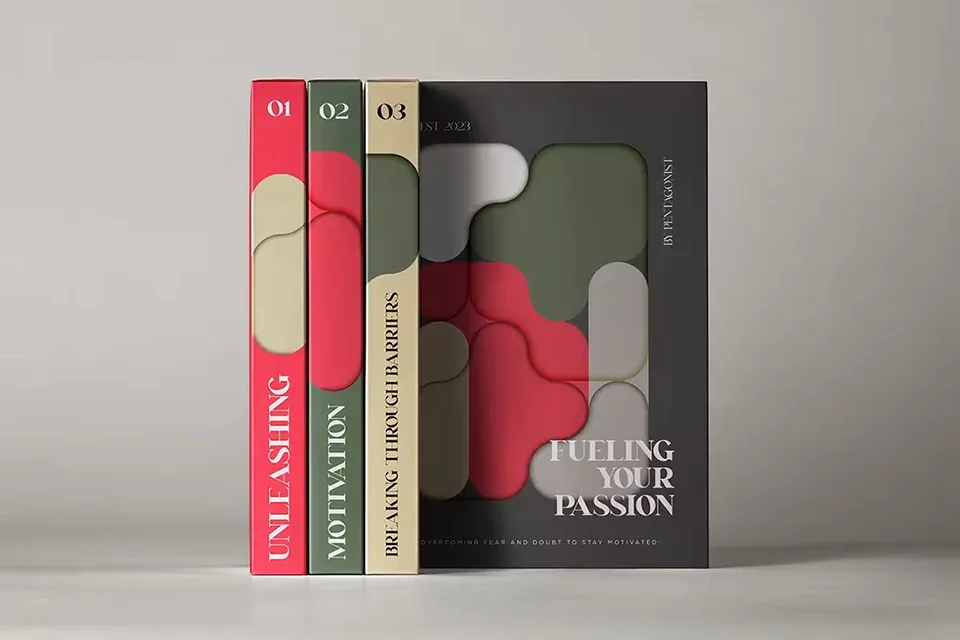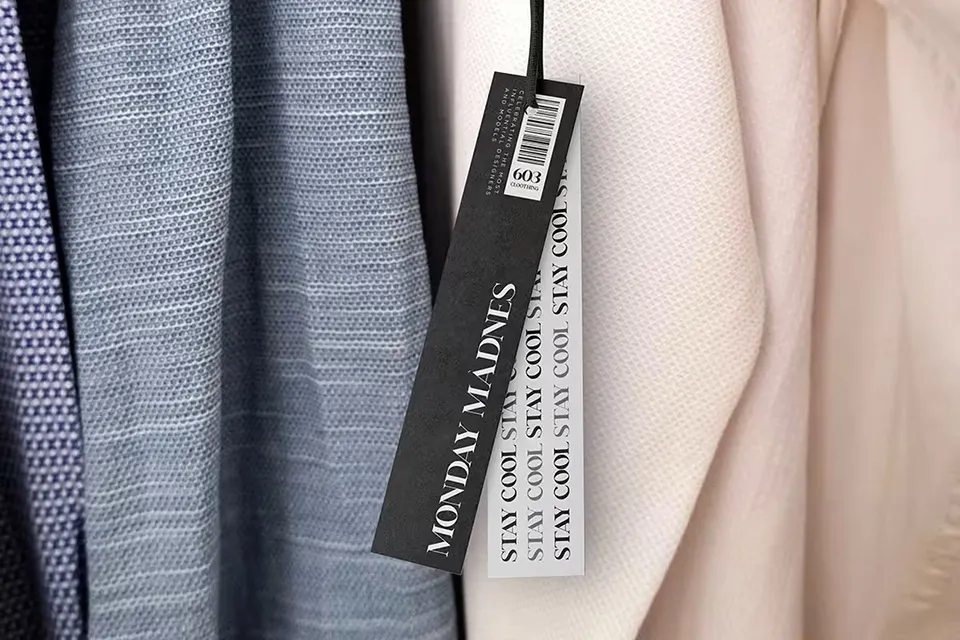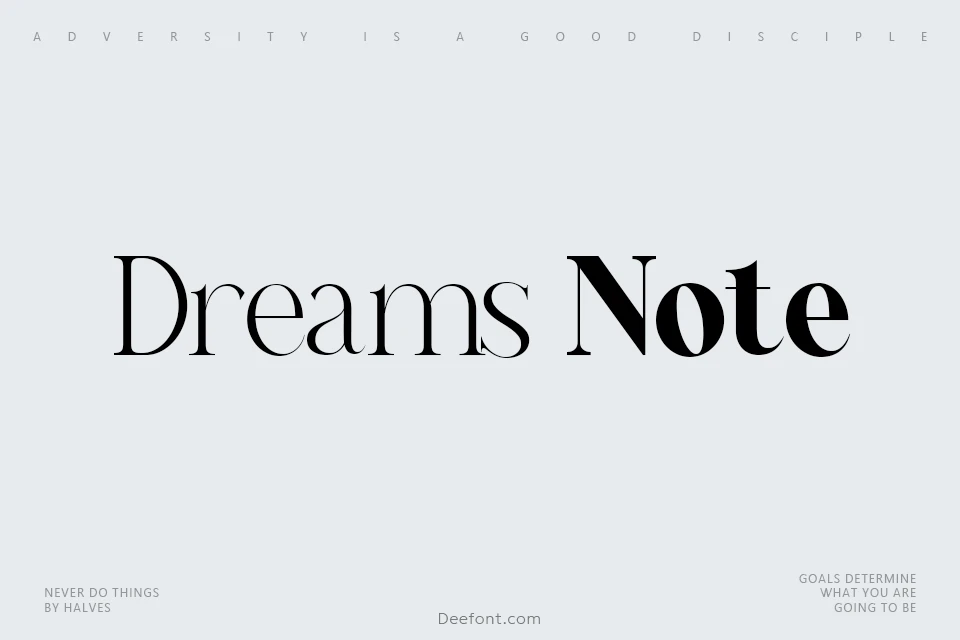
Dreams Note Font
Dreams Note Font is a modern serif family featuring 8 distinct styles, perfect for elegant and luxurious logos, book or movie titles, fashion brands, magazines, apparel, lettering, quotes, and more. Its versatile design and refined letterforms make it ideal for both creative and professional projects, delivering a sophisticated and contemporary look to any application.